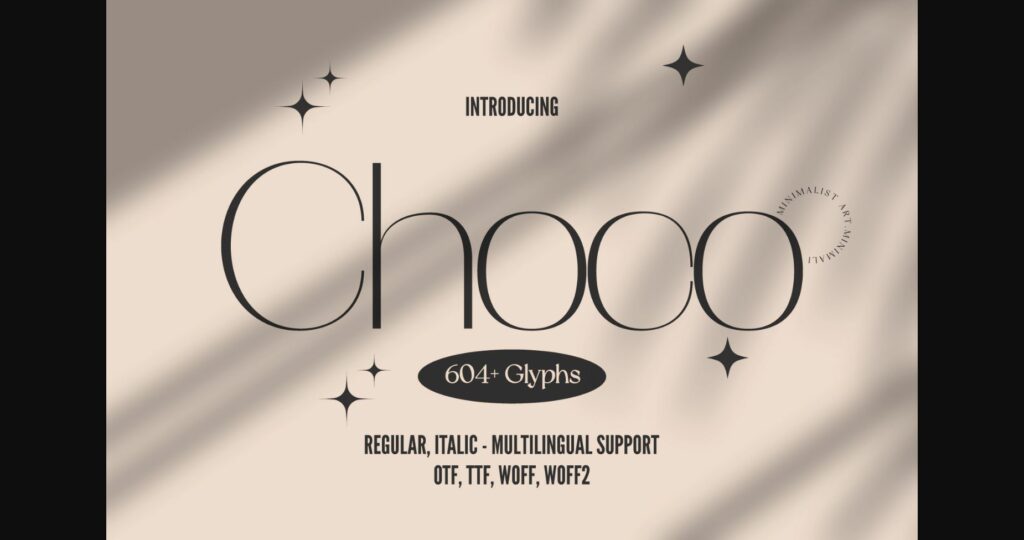
About Choco Font
Introducing Choco, the epitome of chic and sophistication in minimalist sans serif fonts. With its delicate thin lines and clean, modern design, Choco is perfect for adding a touch of elegance to any project. With 604 meticulously crafted glyphs, including both italic and regular weights, Choco offers endless possibilities for creative expression. Whether you’re designing a sleek logo, creating minimalist packaging, or crafting an elegant website, Choco is the perfect choice for achieving a refined, contemporary look.